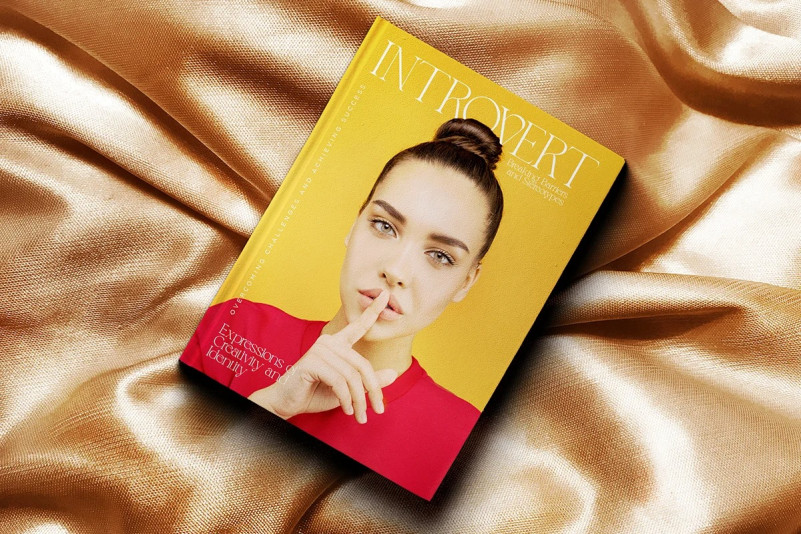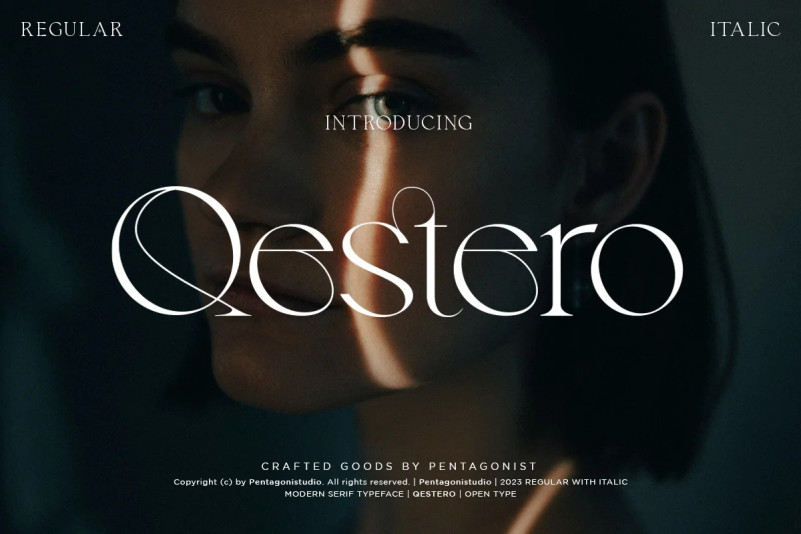
Qestero Font
Qestero Serif Font, is a sleek and exotic inspired modern display font. It can easily be matched to an incredibly large set of projects, so add it to your creative ideas and notice how it makes them stand out!